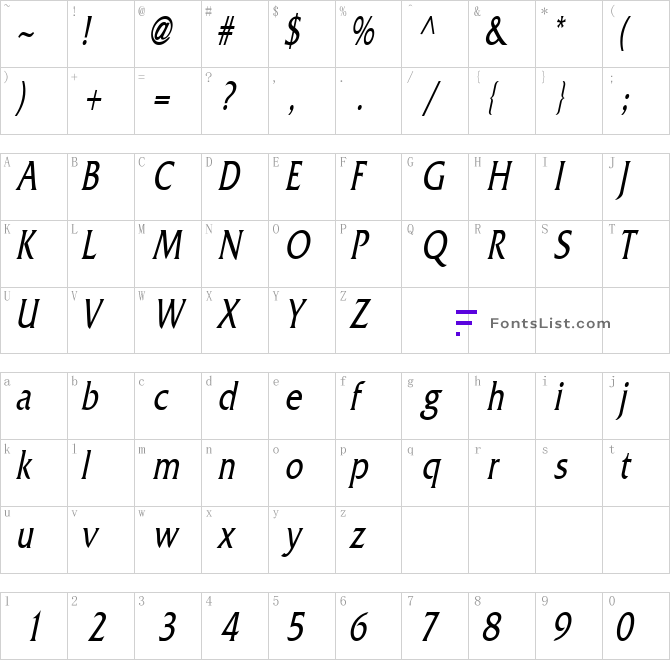
- Font Name:AllianceCondensed
AllianceCondensed-Italic.ttf is a very beautiful artistic font, AllianceCondensed-Italic.ttf is widely used in the design and printing of various books and pictures,AllianceCondensed-Italic.ttf has a strong visual impact,AllianceCondensed-Italic.ttf is a commonly used font in newspapers, magazines and books, and is used in posters, e-commerce Poster design, store design, logo design, font design and other fields.AllianceCondensed-Italic.